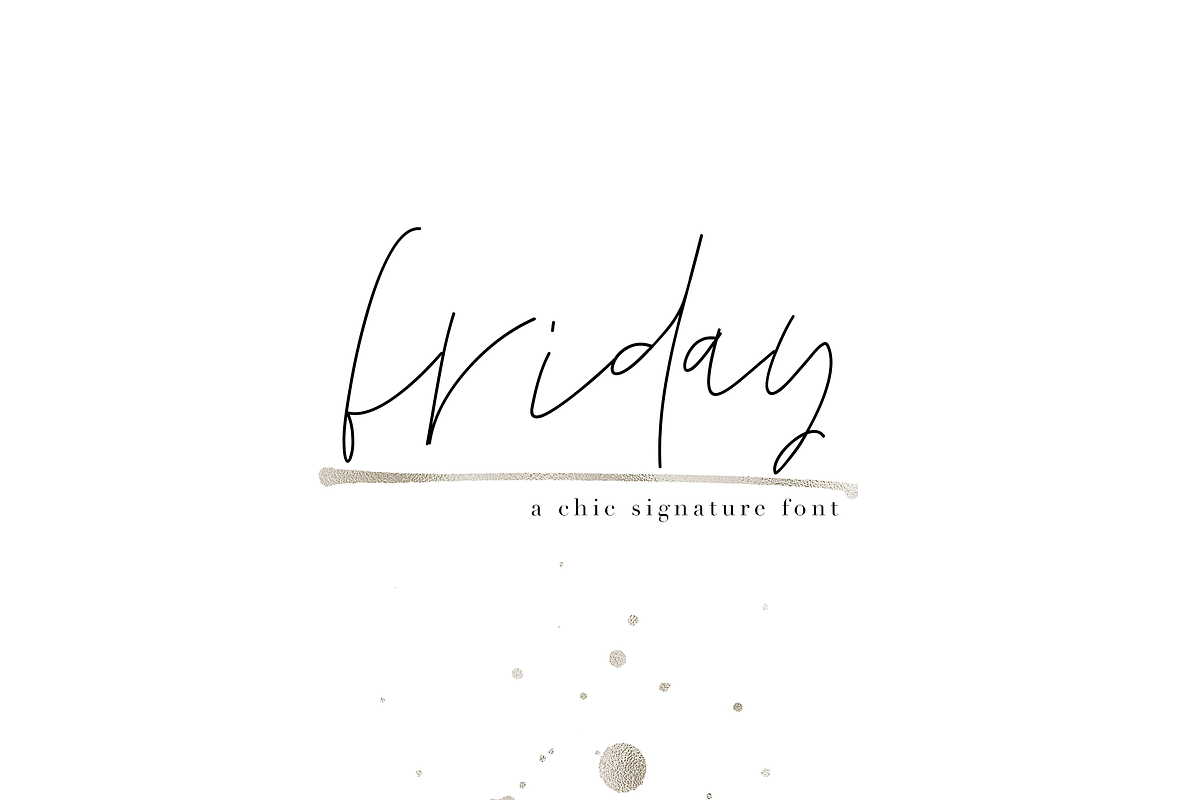
Friday - Chic Signature Font Free Download is a sophisticated and stylish script typeface that adds a personal, elegant touch to any design. With its smooth, flowing letterforms and chic signature style, this font is perfect for luxury branding, wedding invitations, high-end packaging, and chic social media content.
Its modern yet timeless design creates a refined, signature-like feel, making it ideal for projects that need a touch of class and personality. Whether you’re creating a fashion logo, a creative business card, or a premium product label, Friday elevates your typography with effortless elegance.